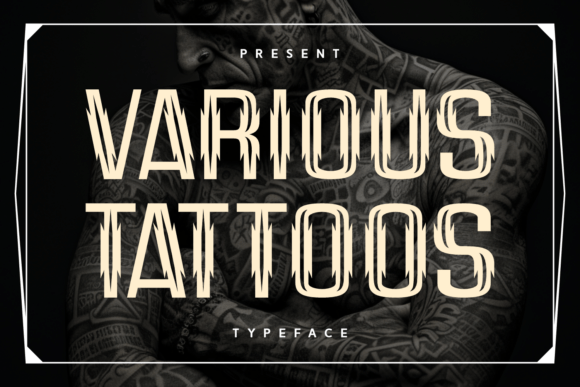
Various Tattoos: A Bold Typeface for Edgy Designs
Tattoo culture has evolved from a niche subculture into a mainstream art form, influencing fashion, music, branding, and visual design. As the demand for edgy aesthetics grows, so does the need for fonts that reflect this bold identity. Enter Various Tattoos, a typeface designed to embody the raw energy of ink culture through its sharp, spiked letterforms and geometric structure. This article explores what makes Various Tattoos unique, how it can be used effectively, and who might benefit most from incorporating it into their creative projects.
The Origins and Purpose of Various Tattoos
Fonts are more than just tools for reading—they’re visual statements. The Various Tattoos typeface was created with this idea in mind, aiming to bridge the gap between traditional tattoo art and digital typography. It’s inspired by the rebellious spirit of body ink, capturing the essence of what makes tattoos visually compelling: contrast, texture, and an unmistakable sense of attitude.
This font is not just about looking cool; it serves a functional purpose too. It's ideal for any project that requires immediate visual impact, such as event posters, album covers, clothing lines, or branding materials for businesses with a tough or artistic vibe. Whether you're a designer, artist, or business owner, understanding the right context for using this font is essential to leveraging its full potential.
Key Features of Various Tattoos
Who Can Benefit from Using Various Tattoos?
Various Tattoos is a powerful tool for anyone working within the creative industry. Here’s a closer look at some of the key users who can benefit from it:
Designers and Artists
Graphic designers often seek fonts that make a statement without overshadowing the content. Various Tattoos fits this bill perfectly. Its edgy style can enhance designs related to punk rock, streetwear, or underground art scenes. Artists who want to incorporate a tattoo-like feel into their work—without drawing each letter manually—can use this font to add authenticity and flair to their pieces.
Music and Event Industry Professionals
Posters and promotional materials for concerts, festivals, and other events need to stand out. With Various Tattoos, event organizers can craft visuals that scream rebellion and creativity. Bands playing alternative genres like metal, punk, or hardcore often find this font aligns well with their branding and audience expectations.
Apparel and Branding Creators
In the world of fashion, especially within streetwear and urban brands, fonts play a critical role in storytelling. Various Tattoos can be used to design logos, labels, or even printed messages on t-shirts and jackets. Its strong presence ensures that the message is not only seen but felt.
Business Owners and Marketers
If your brand is all about edge, individuality, or strength, then this font could be a perfect fit. Tattoo parlors, custom shops, and lifestyle brands often use it to reinforce their identity. However, it’s important to consider your target audience before making it a core part of your brand’s visual language.
Strengths and Considerations
Like any font, Various Tattoos has its strengths and limitations. Understanding these can help you decide if it’s the right choice for your next project.
Strengths
1. Immediate Visual Impact: The font grabs attention quickly, making it excellent for headlines or call-to-action text.
2. Edgy and Memorable: Its unique style helps differentiate your content from the competition.
3. Works Well in Black and White: Thanks to its high contrast and bold outlines, it remains effective even without color.
Considerations and Limitations
Real-World Applications of Various Tattoos
To truly appreciate the versatility of Various Tattoos, let’s explore a few real-world scenarios where it shines:
Poster Design for a Music Festival
Imagine creating a poster for a heavy metal festival. You want the title to scream intensity while still being legible. Using Various Tattoos in large size with a black background and red accents can evoke the mood of the event instantly. Pair it with relevant imagery, and you’ve got a poster that resonates with fans and stands out in crowded spaces.
Custom Apparel Branding
A small apparel company launching a new line focused on biker culture could use this font to print “Rebel Soul” across the back of a jacket. The spiked design complements the rugged theme, and the boldness of the font ensures it’s visible from a distance. This kind of application adds depth and meaning to the product, connecting with customers on a visual and emotional level.
Album Covers and Merchandise
Independent artists and record labels often rely on striking visuals to market their music. Various Tattoos can be used for band names, song titles, or even merchandise tags. For example, a punk band named “Skull & Chains” would look incredibly fitting in this font, reinforcing their image and attracting their core fan base.